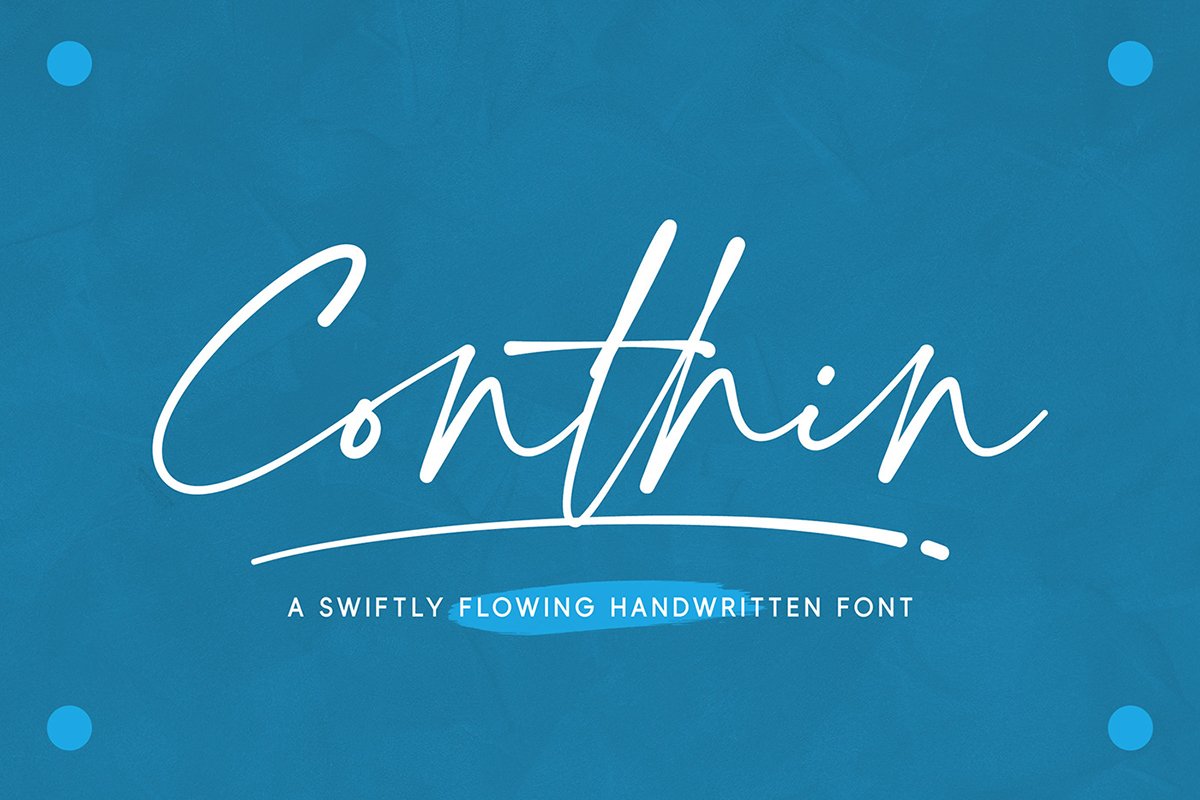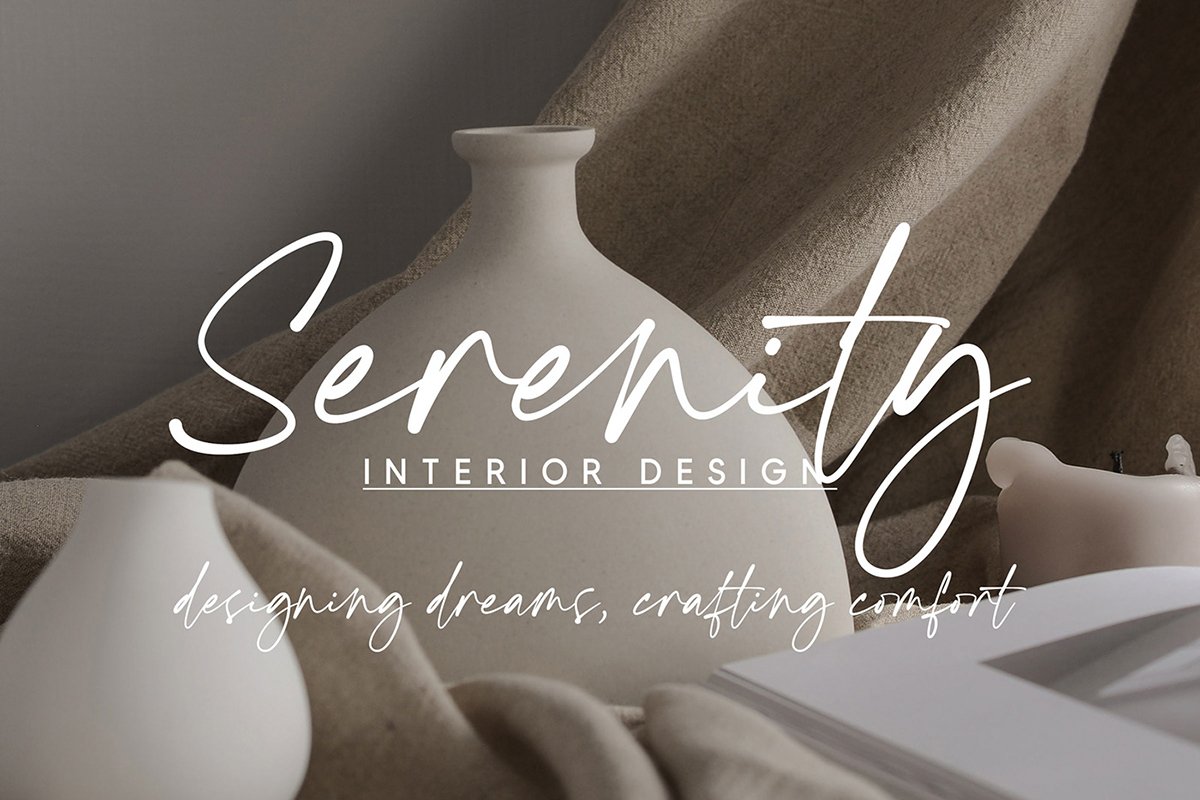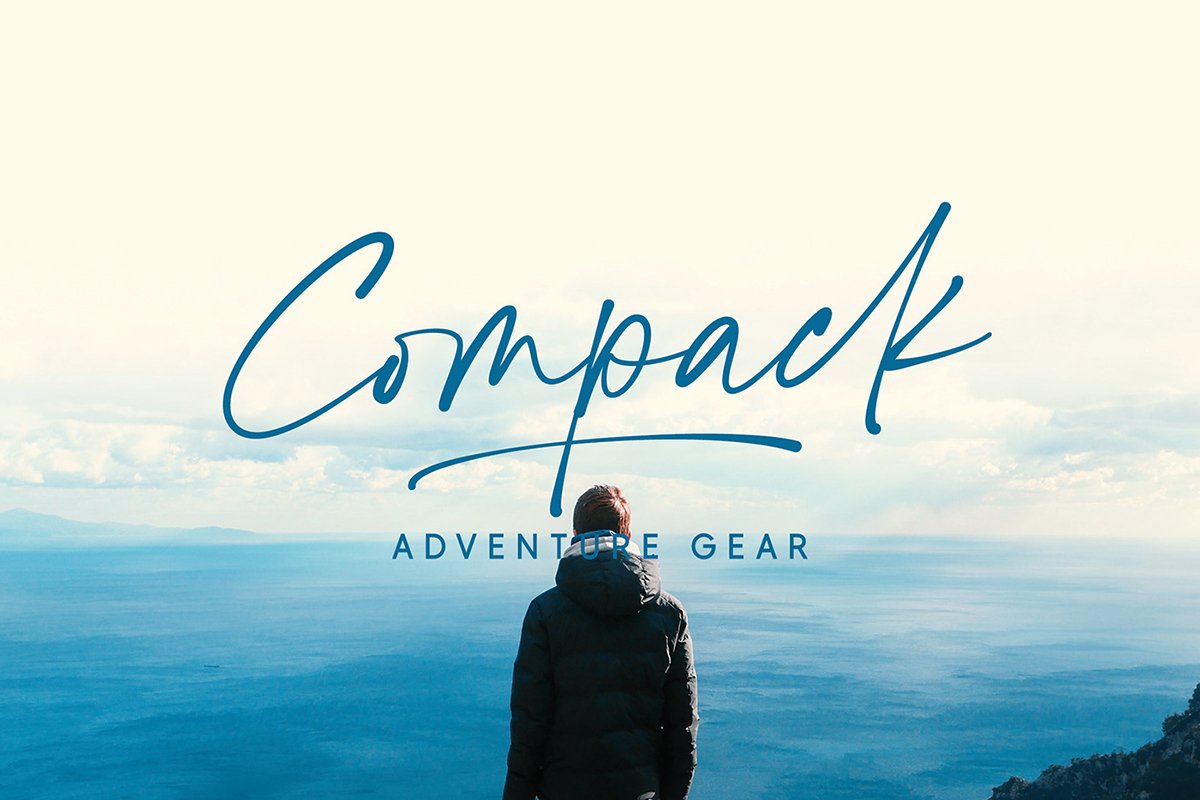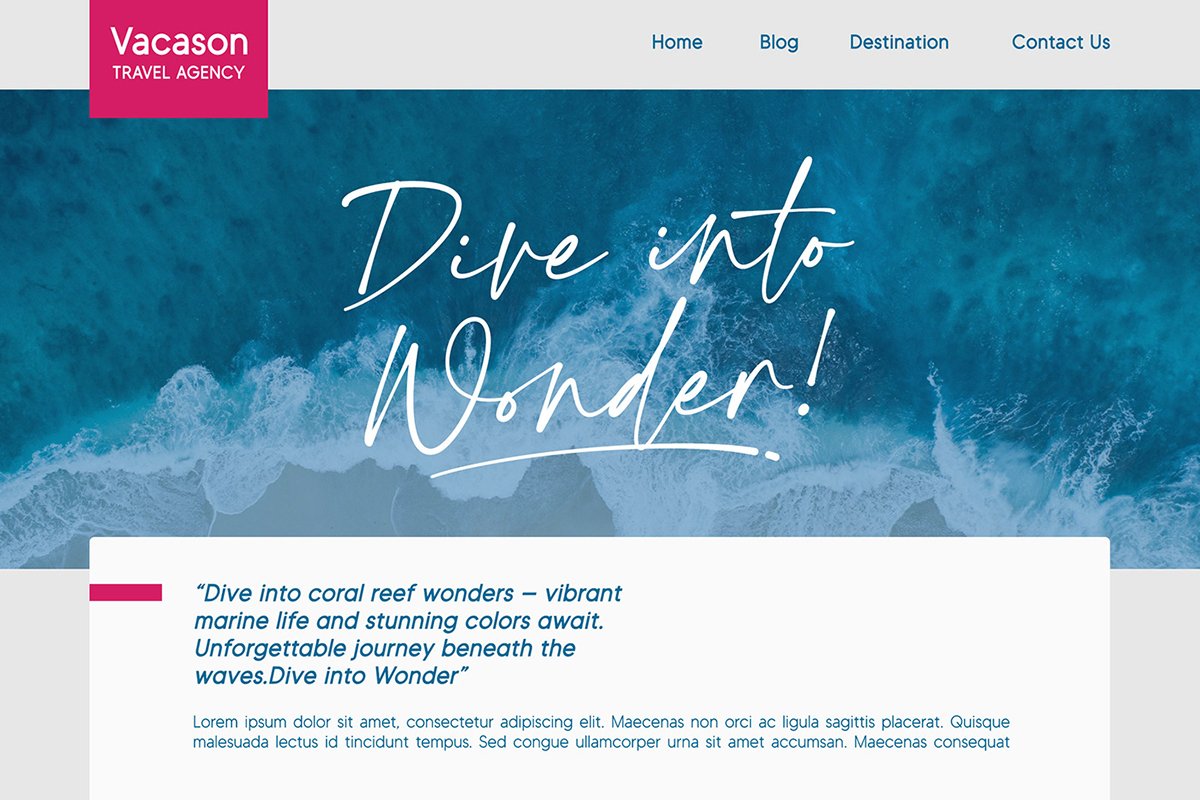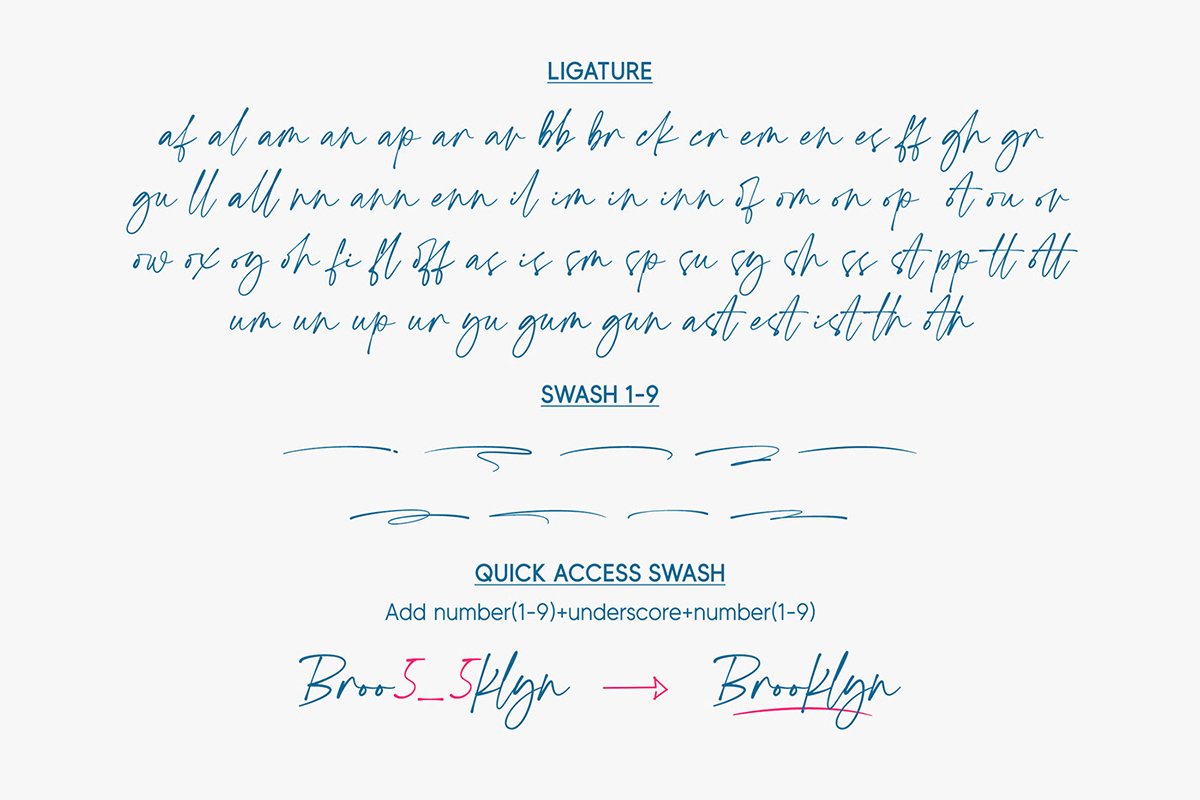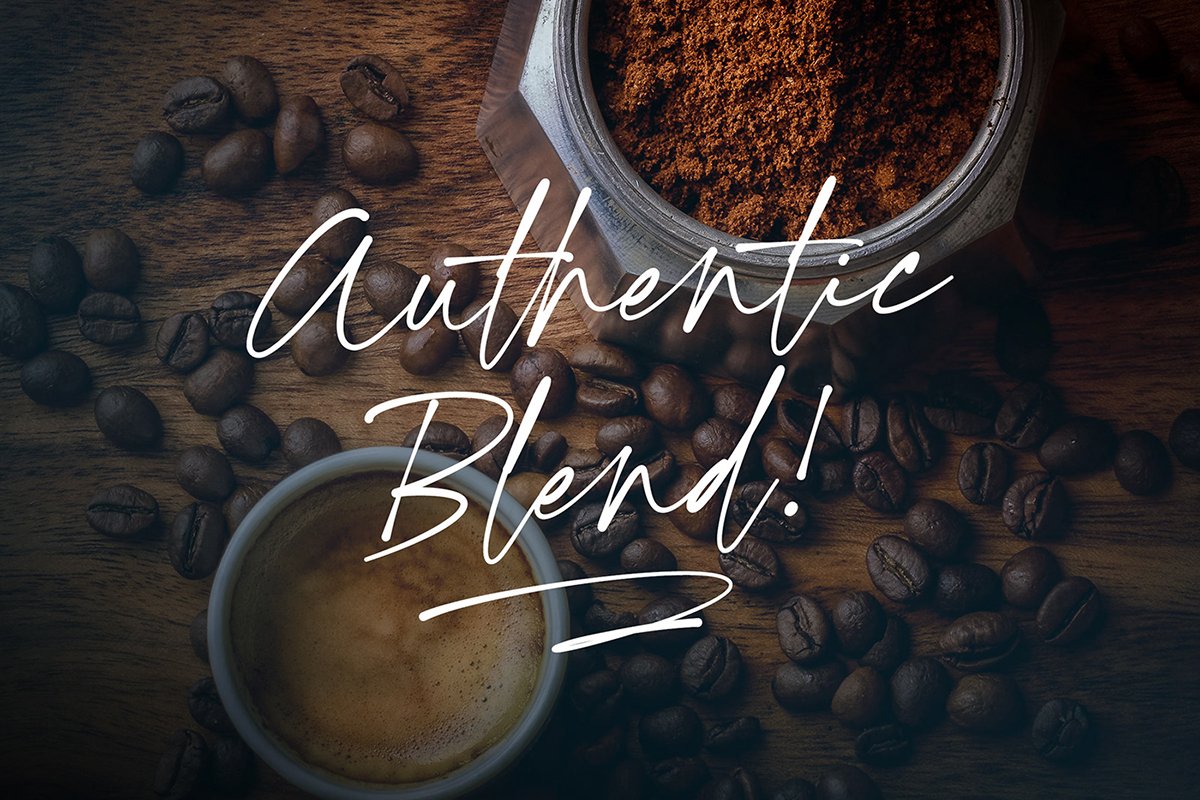
Conthin – Signature Font is a swiftly flowing handwritten font, where thin, graceful strokes elegantly connect, containing the essence of fluid motion. This font is suitable for a wide range of projects, including headlines, logos, labels, branding, signatures, quotes, posters, and more.
Conthin